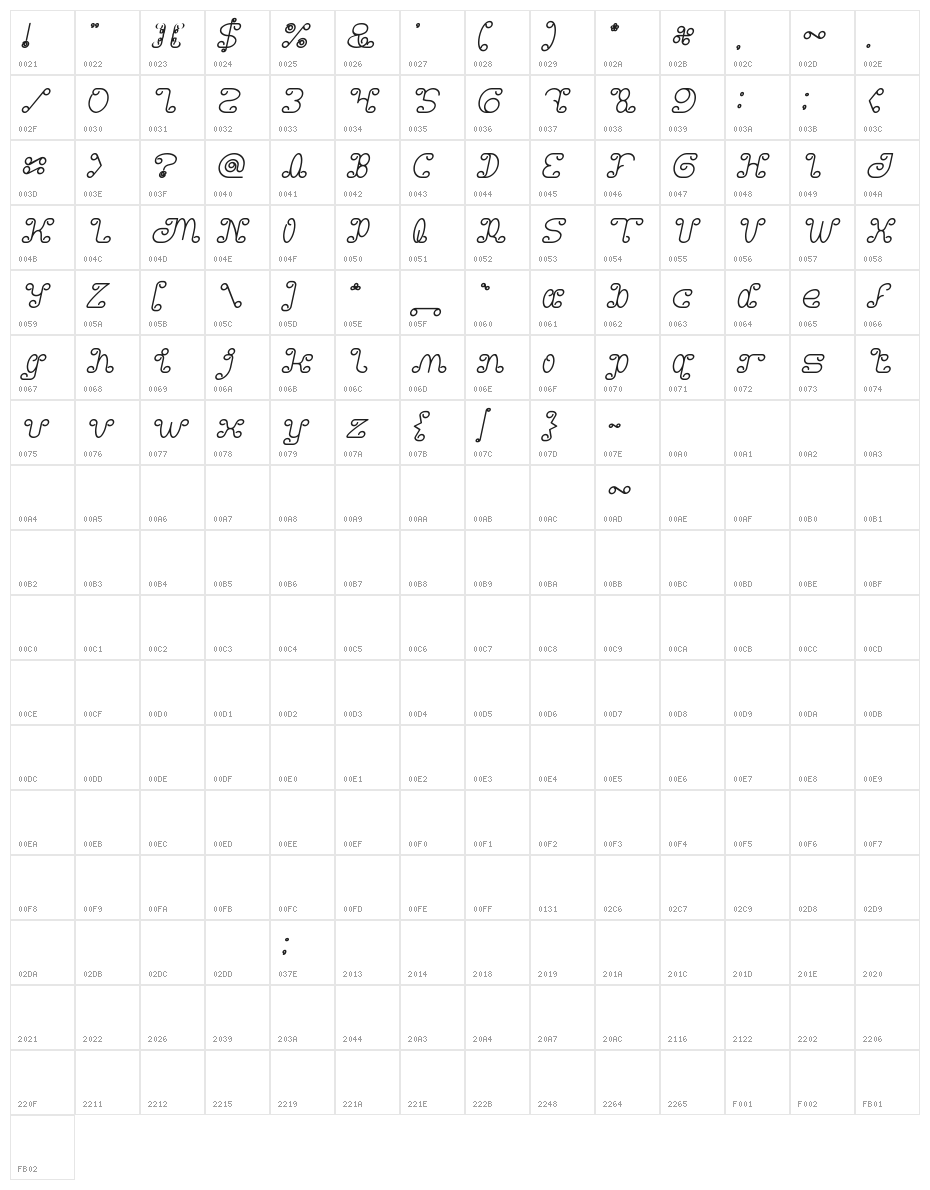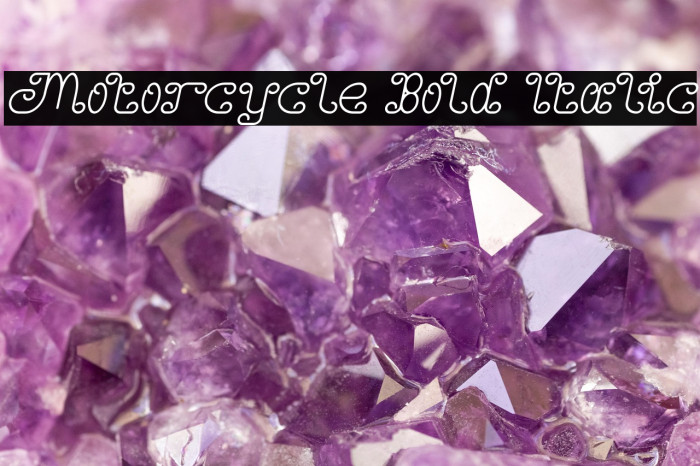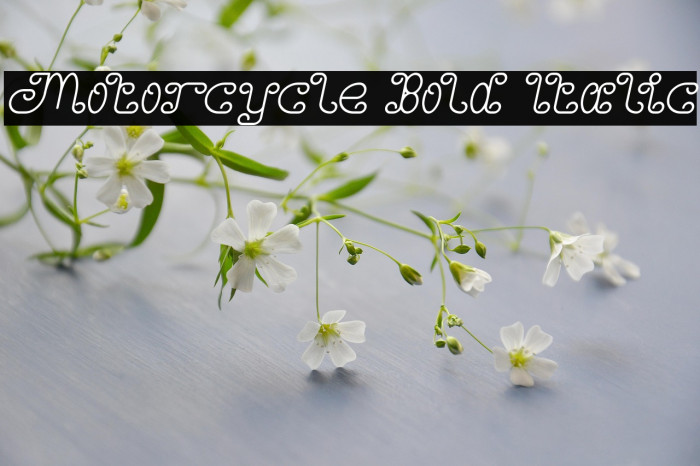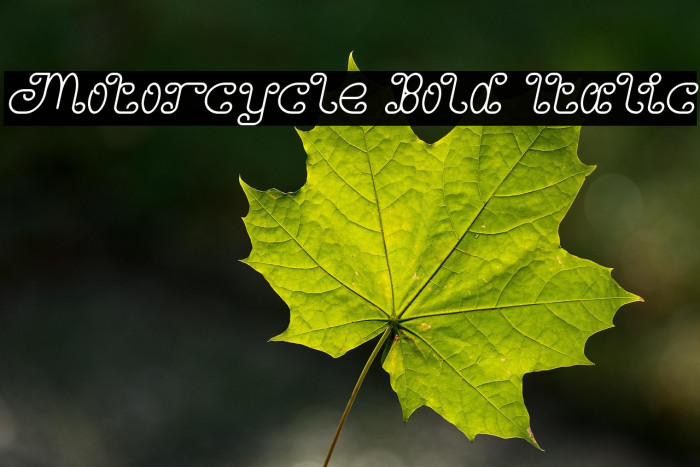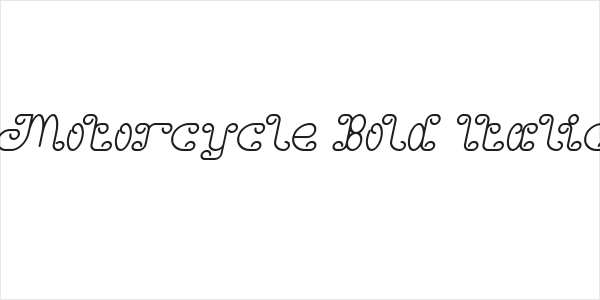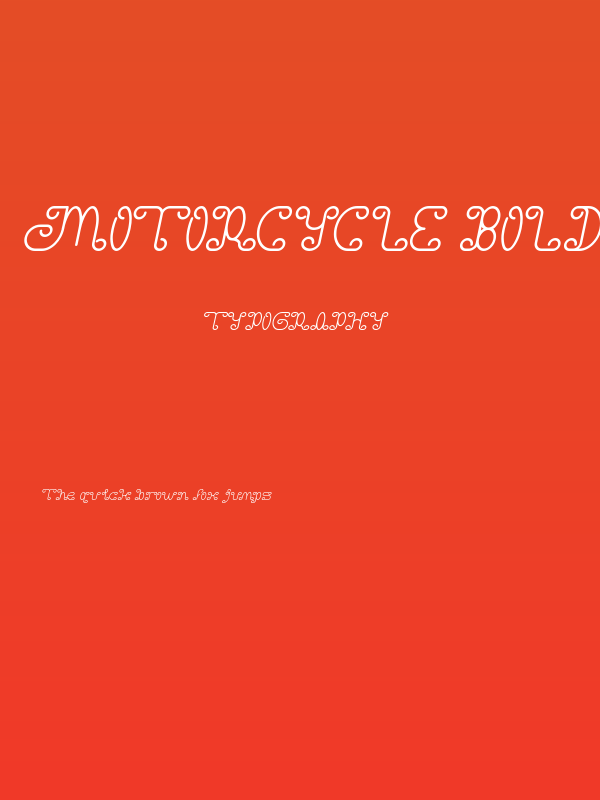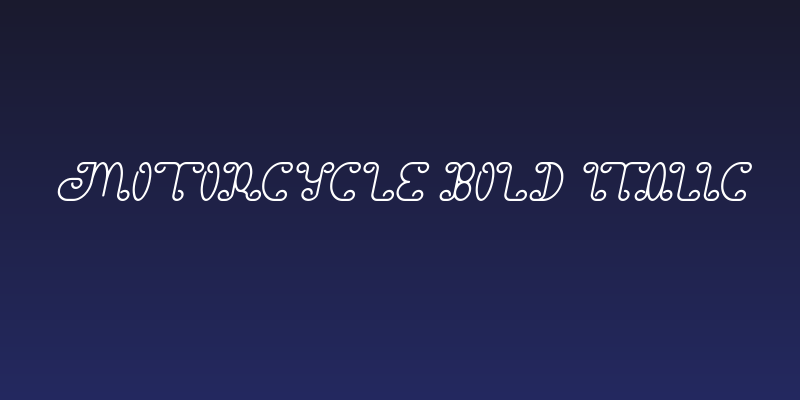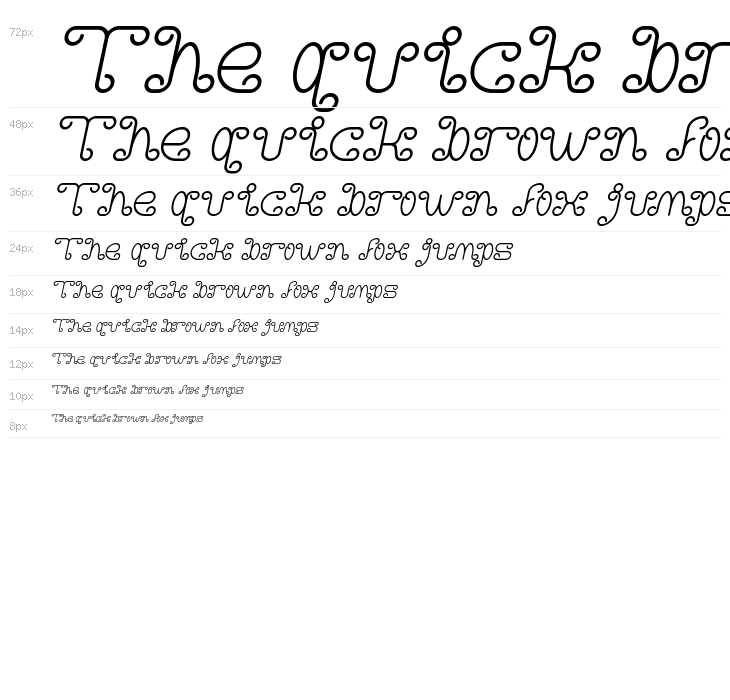
Motorcycle Bold Italic Font
Motorcycle Bold Italic Description
This font features a unique and playful design with swirling, looped elements that give each character a whimsical appearance. The letters are bold and italicized, creating a dynamic and eye-catching style. The strokes are consistent in thickness, providing a uniform look across all characters. The font includes both uppercase and lowercase letters, numbers, and a variety of special characters. Its decorative nature makes it suitable for creative and informal applications, where a touch of fun and personality is desired.
Proposed ProjectsIdeal for children's book covers, playful branding, greeting cards, and creative posters.